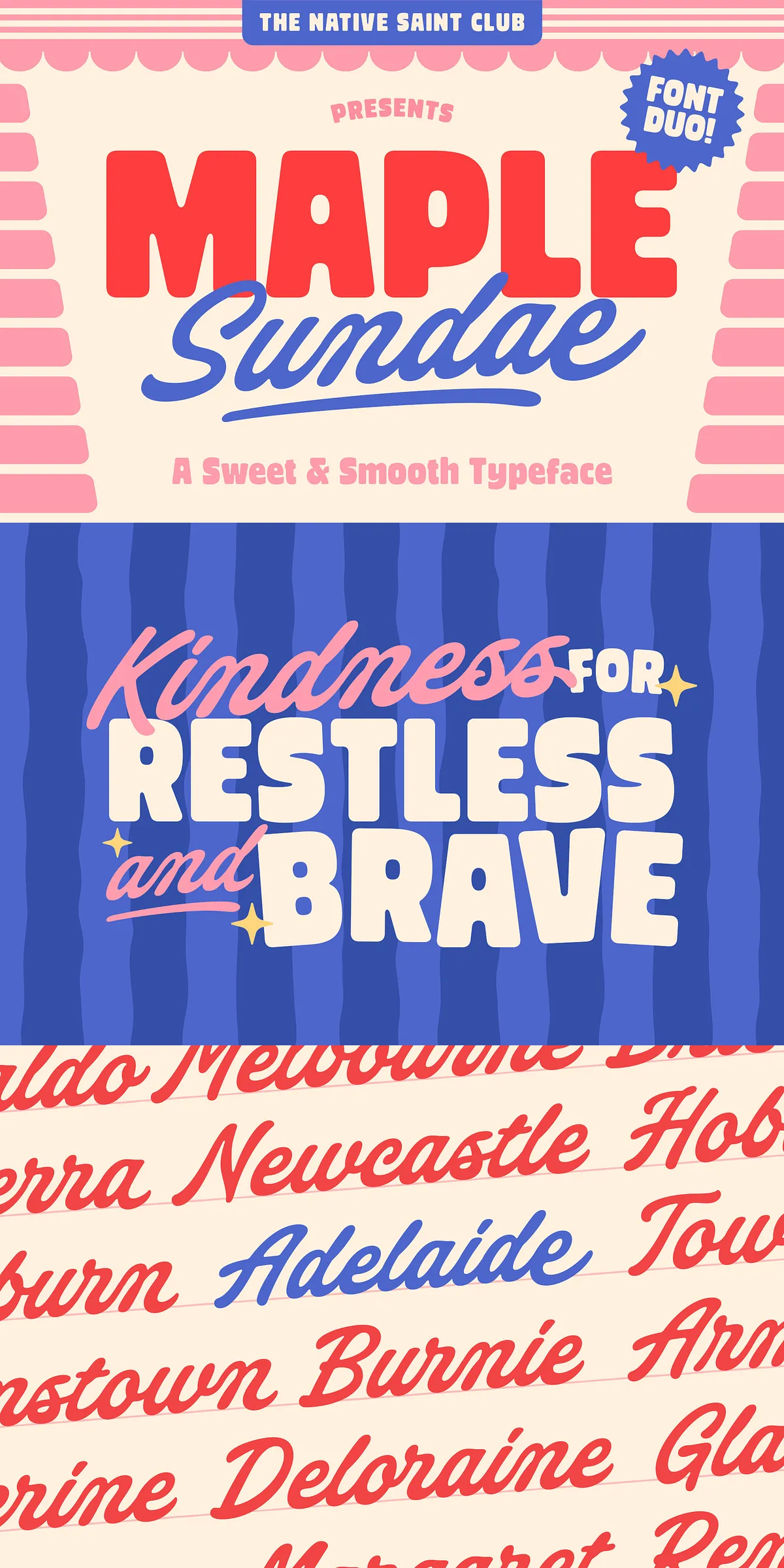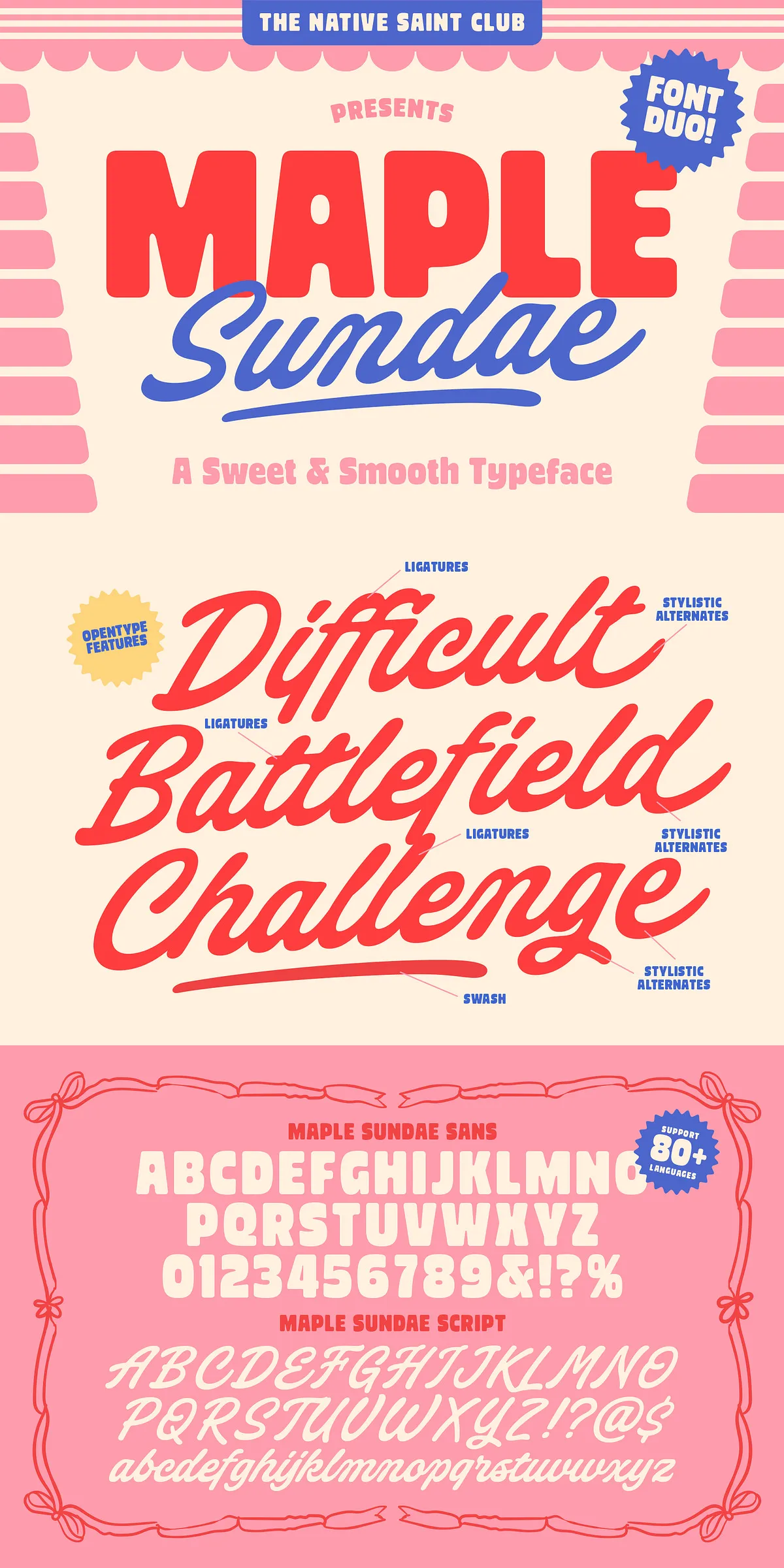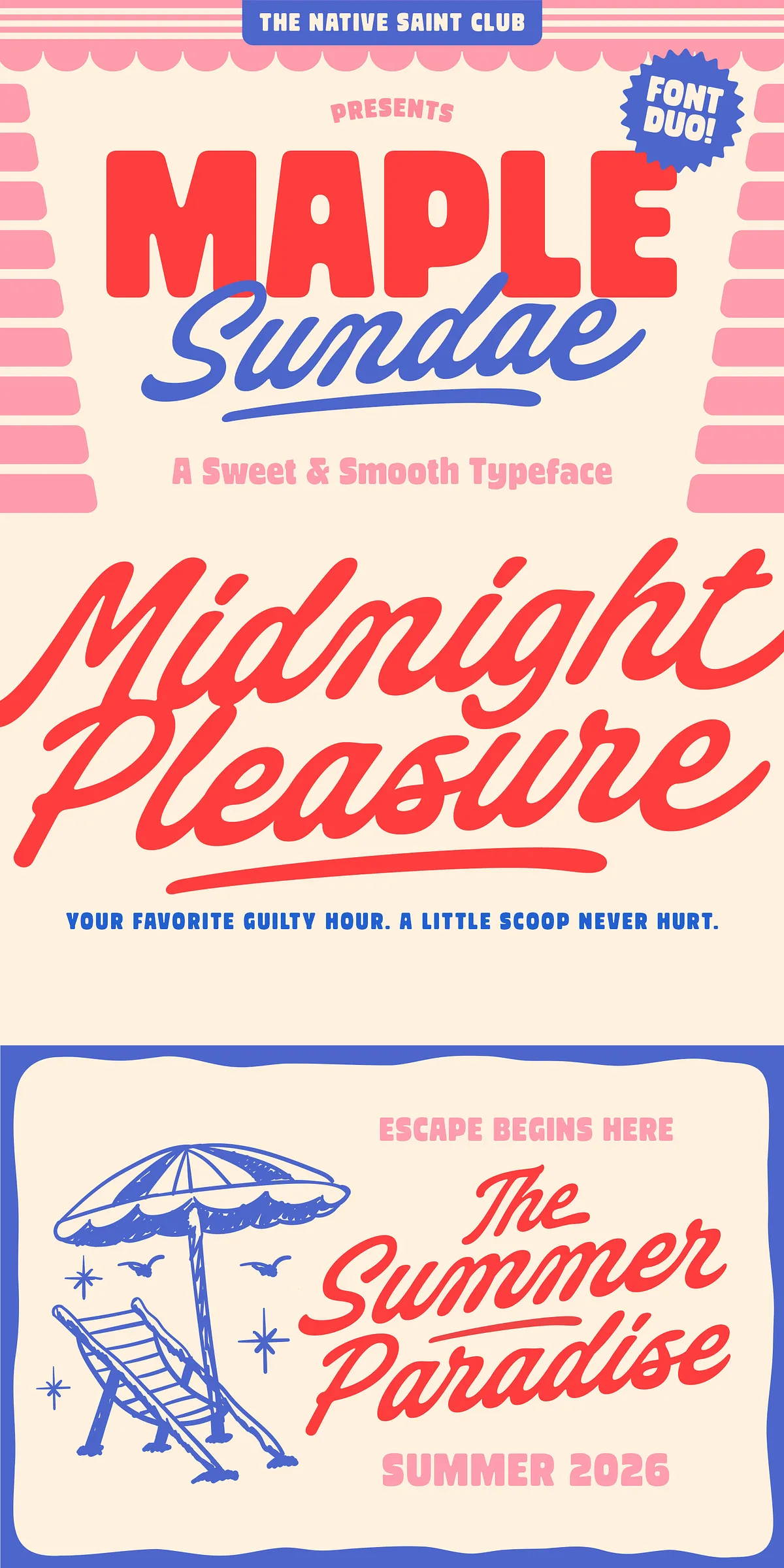
Step into a world of joyful typography with TNSC Maple Sundae — a bold, whimsical font duo that blends sweet charm with creative punch. Whether you’re designing a product label, crafting a heartfelt greeting card, building a brand identity, or creating social media content, this duo delivers the perfect balance of boldness, friendliness, and design flair. Its playful nature lifts any project, turning ordinary ideas into delightfully memorable visuals.
Meet the Duo: Chunky Sans Meets Flowing Script
At the heart of TNSC Maple Sundae lies a dynamic synergy between two complementary styles:
- Maple Sundae Sans — A thick, rounded sans-serif with soft edges and generous proportions. Its chubby, friendly form makes it ideal for headlines, banners, and anything that needs to grab attention with warmth and approachability.
- Maple Sundae Script — A flowing, handwritten-style script that mimics natural pen movement with graceful curves and subtle variations. Perfect for adding personal touches to logos, quotes, invitations, and branding materials.
Together, they form a powerful combination: the structure and legibility of the sans-serif balanced by the organic rhythm and artistic feel of the script — creating a harmonious, balanced typographic voice that stands out in any context.
Why This Duo Works So Well
Not every font pair clicks. But TNSC Maple Sundae was designed from the ground up to complement each other. The generous spacing in the Sans style provides room for the script to flow naturally, while the script’s fluidity brings liveliness to the more rigid structure of the sans. This balance ensures that your designs never feel cluttered, confusing, or mismatched.
Perfect for Playful, Vibrant Creative Projects
From startups to boutique brands, from digital content to physical packaging, TNSC Maple Sundae is built to bring fun and personality to your work. Here’s where it truly shines:
Best Use Cases:
- Product Labels & Packaging — Make your products pop on shelves with a playful yet professional look. The bold sans grabs attention; the script adds charm and authenticity.
- Greeting Cards & Invitations — Perfect for birthdays, baby showers, weddings, or holiday cards. The font duo adds a warm, personal touch that feels handcrafted.
- Branding & Logo Design — Use the sans for the brand name, the script for a tagline or subtitle. The pair gives you flexibility and consistency across identity systems.
- Social Media Posts & Marketing — Ideal for Instagram posts, Facebook ads, and Pinterest visuals. Catchy, readable, and instantly engaging.
- Quotes & Typography Art — Turn inspirational messages into eye-catching visuals. The contrast between the two styles adds drama and rhythm.
- Website Headers & UI Elements — Use the sans for navigation, buttons, or headings; the script for subtle accents or call-outs.
Each font is carefully crafted with clean outlines, perfect kerning, and full support for uppercase, lowercase, numerals, punctuation, and special characters — including basic diacritics for international use.
Design with Confidence. Create with Joy.
When your typography feels like fun, your design shines. TNSC Maple Sundae isn’t just a font — it’s an invitation to design with warmth, creativity, and a little sugar. It’s for the designers who want their work to feel personal, approachable, and full of character.